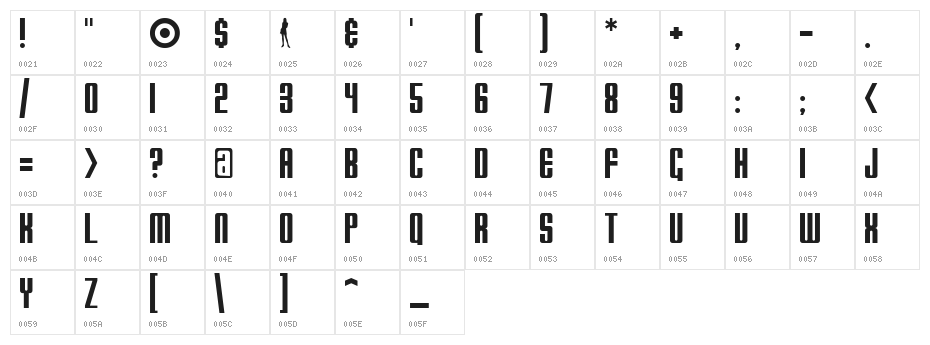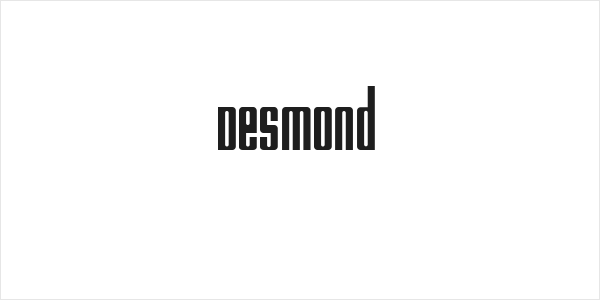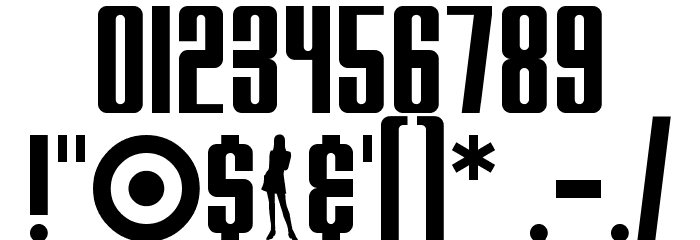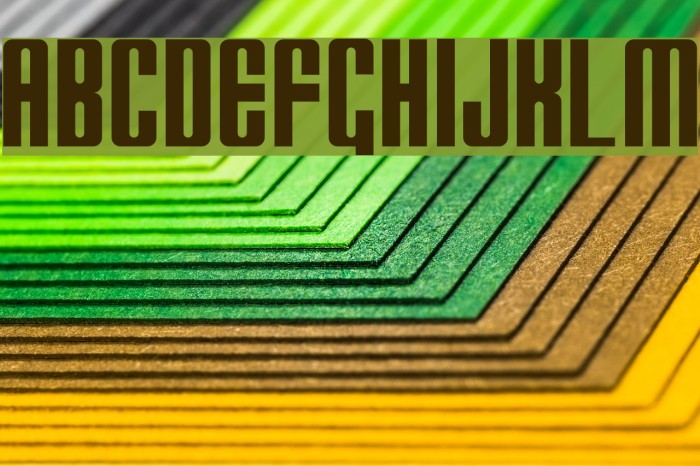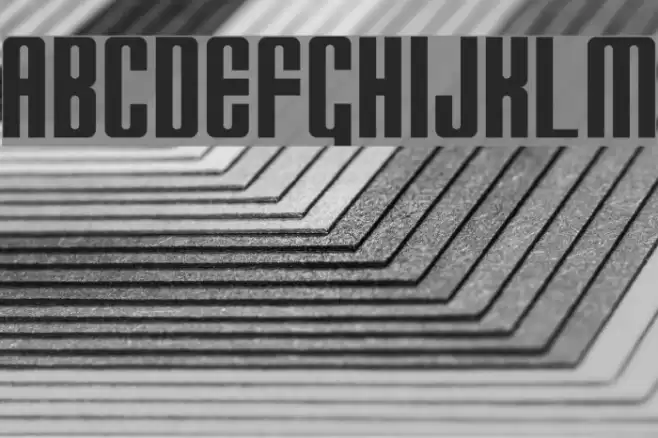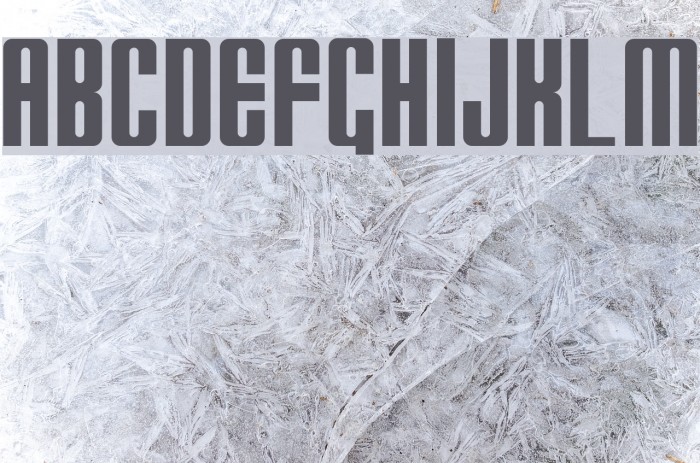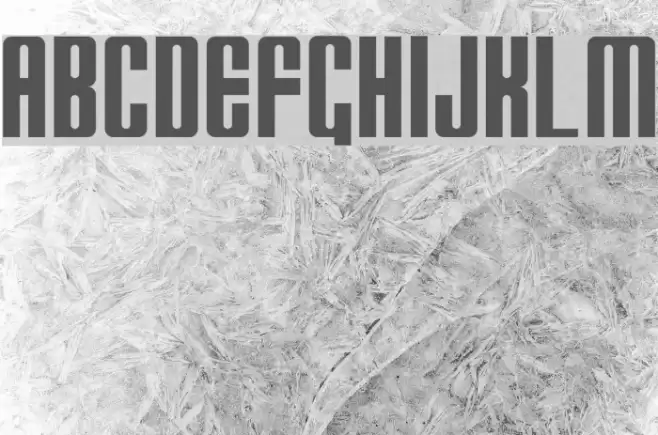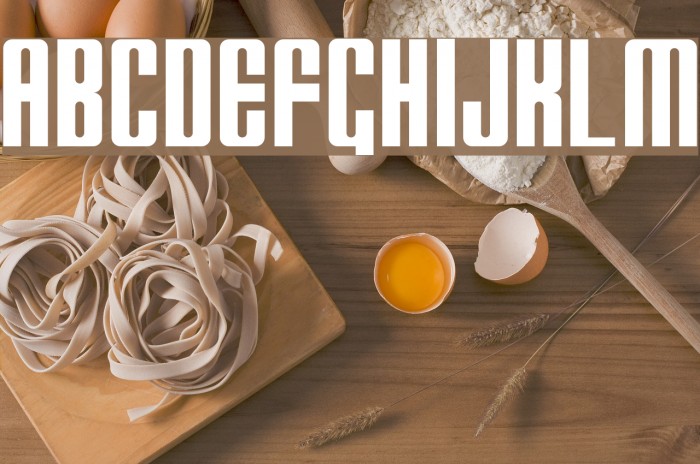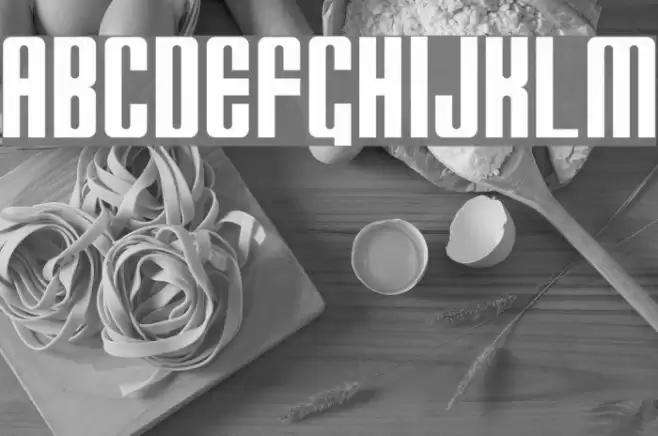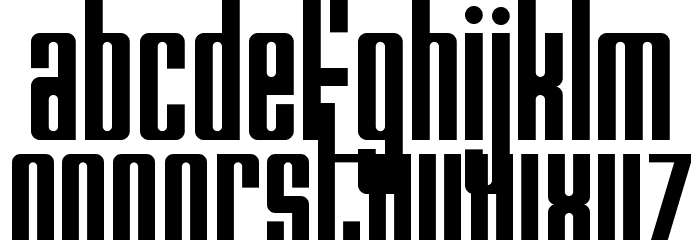
Desmond Font
Desmond Description
This font features a bold and striking design with a strong geometric influence. The characters are tall and narrow, with consistent stroke widths that create a uniform appearance. The uppercase letters are particularly commanding, with sharp angles and a modern aesthetic. The lowercase letters maintain the same boldness, ensuring readability while adding a touch of uniqueness with their slightly condensed form. Numbers and special characters are designed to match the overall style, making them suitable for a variety of design applications. The font's clean lines and structured form make it ideal for projects that require a contemporary and impactful look.